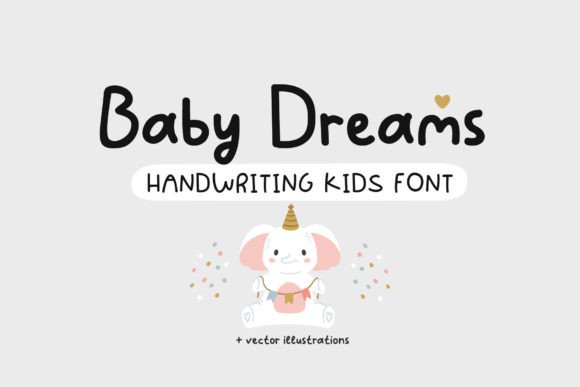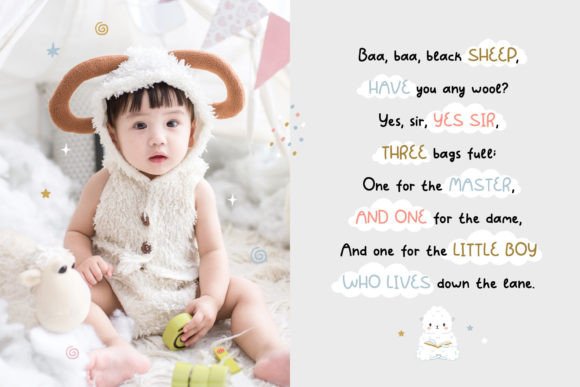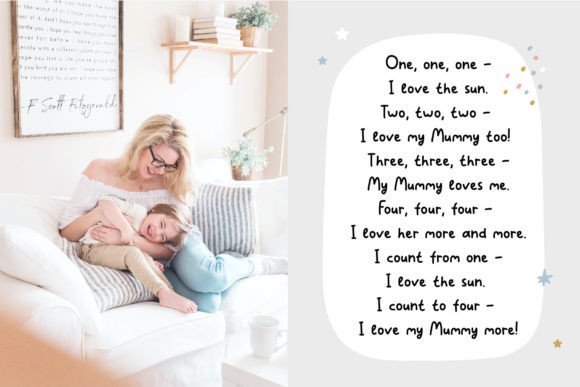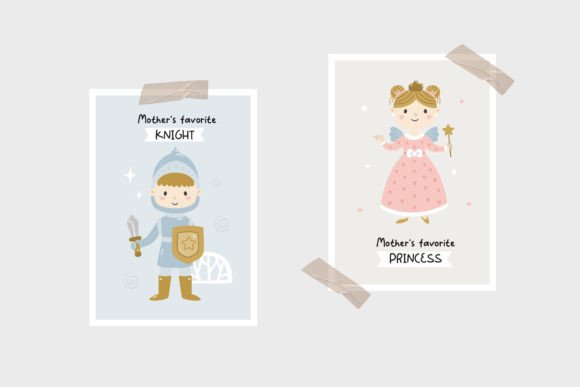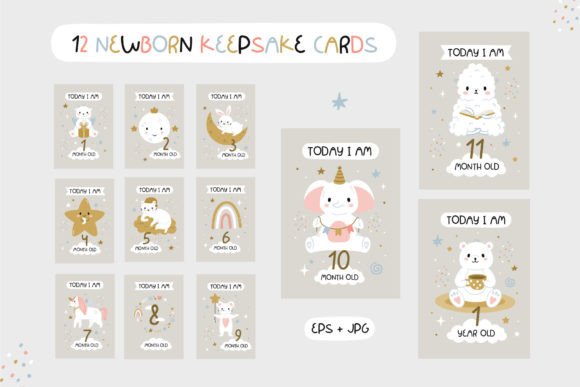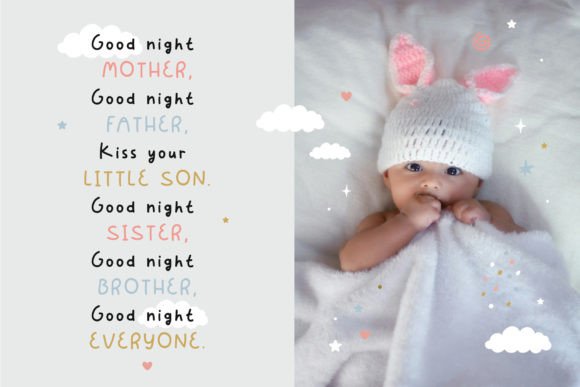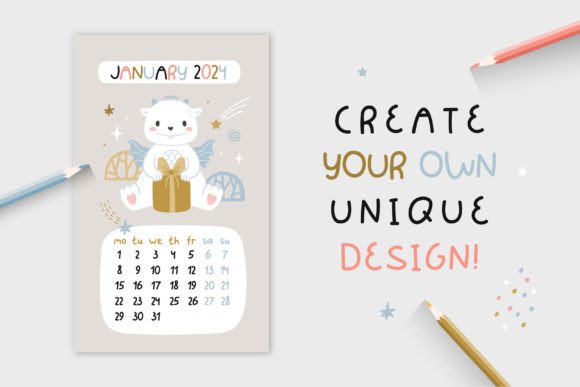
Baby Dreams Font
Baby Dreams is a cute baby playful font that would be perfect for baby shower design, newborn cards, design room posters and prints, bohemian nursery interiors, books, greeting cards, toys, baby clothing, picture books, and anything that requires a fun and happy look! The font also includes the Cyrillic alphabet.